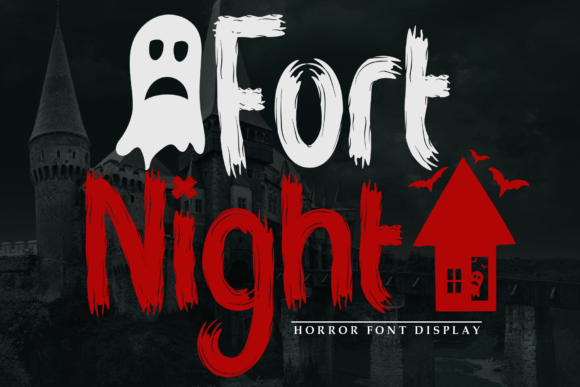
Dive into the realm of darkness and intrigue with Fortnight Font, the display typeface that embodies the essence of nighttime adventures. This captivating font, crafted with precision and passion by William Jhardy, exudes an aura of mystery and boldness that will leave your designs spellbound.
Fortnight Font's strong lines and dynamic letterforms create a visual symphony that commands attention. Each character dances across the page with confidence, demanding to be seen and remembered. Whether you're creating gaming titles, event posters, or striking headlines, Fortnight Font will elevate your designs to new heights of visual impact.
Let Fortnight Font illuminate your creative vision with its nocturnal power. Unleash the magic of the night with this font that captures the essence of urban exploration, late-night adventures, and the enigmatic beauty of the starlit sky.
Succumb to the allure of darkness and discover the limitless possibilities that await you with Fortnight Font. Its bold presence will transform your designs into captivating masterpieces, leaving a lasting impression on your audience.